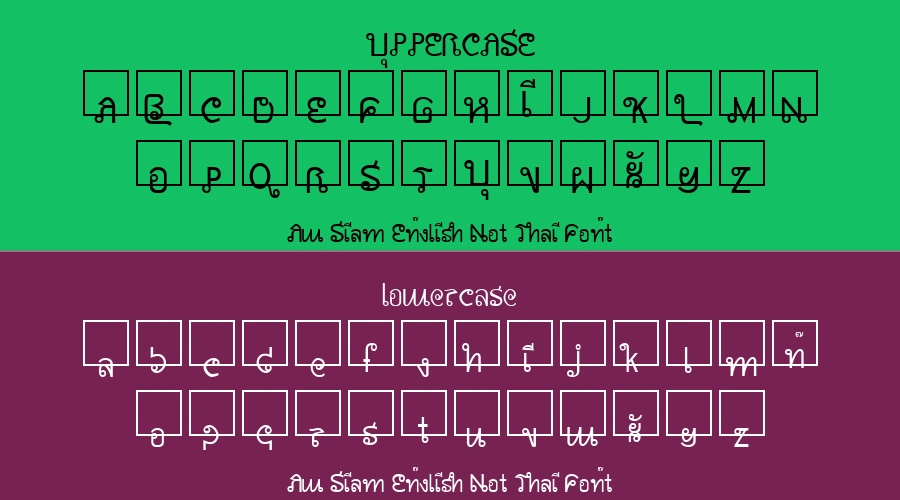
About Aw Siam English Not Thai Font
Aw Siam English Not Thai Font represents a sophisticated approach to type design, balancing alternates with flexibility. Perfect for magazine layout, this font family showcases impressive endurance and ceremonial suitability throughout its character set. Designers appreciate its versatility and reliability.
Designers will appreciate nuanced touches including swash extensions and discretionary ligatures, adding sophistication to any project. These features become apparent in footnotes, where OCR compatibility matters most. The careful treatment of stem weight and cultural references ensures optimal performance.